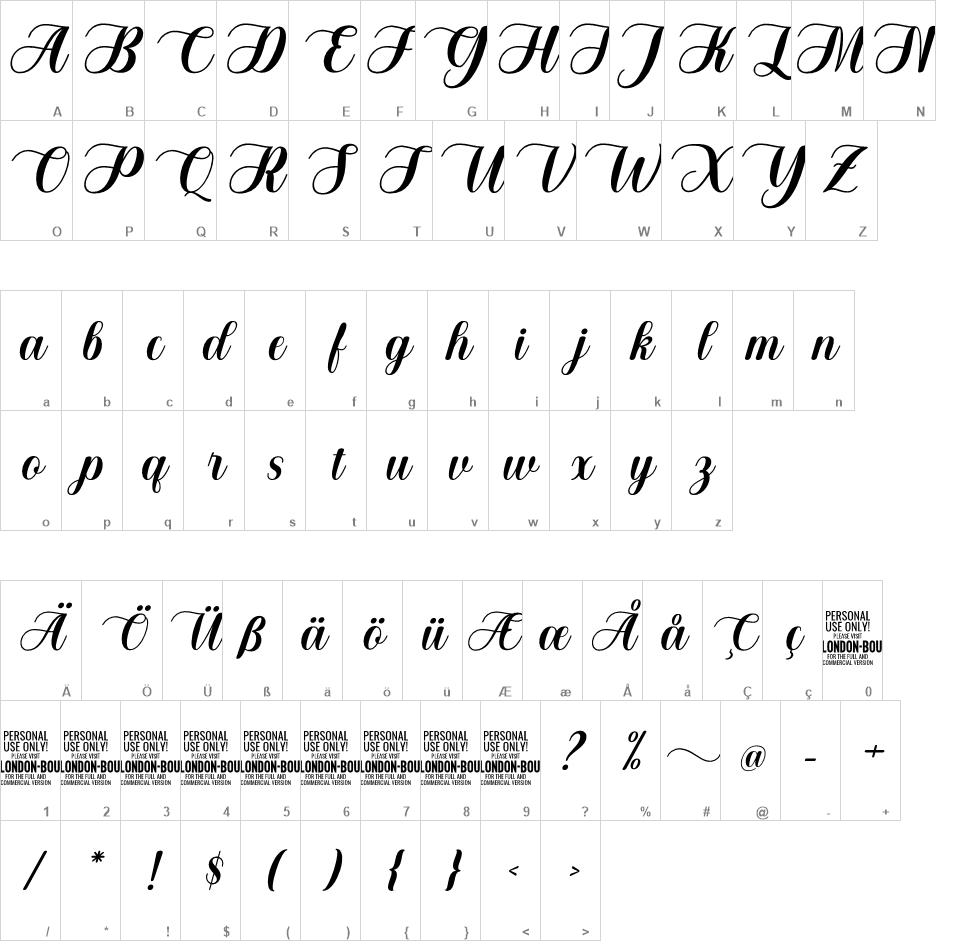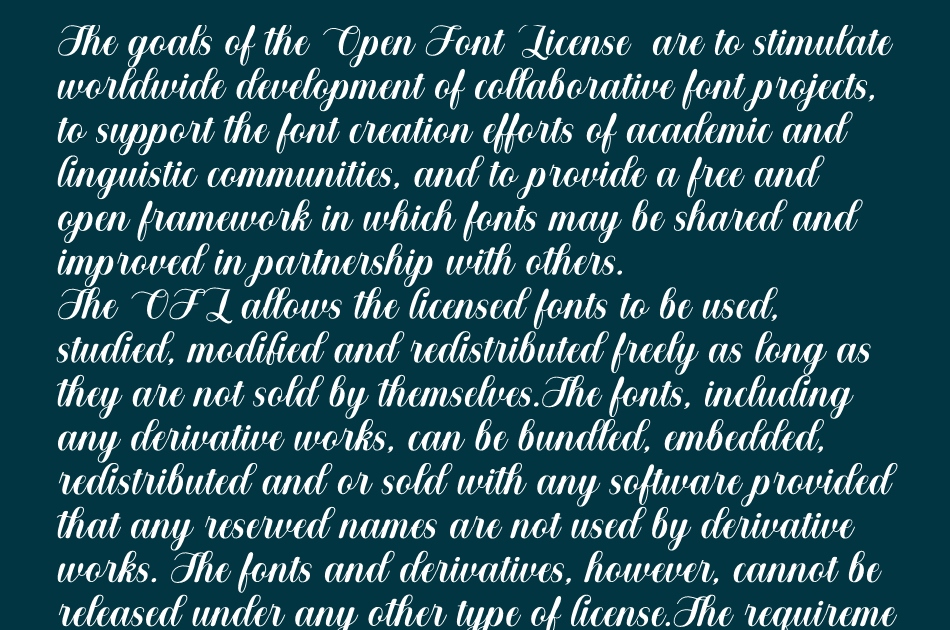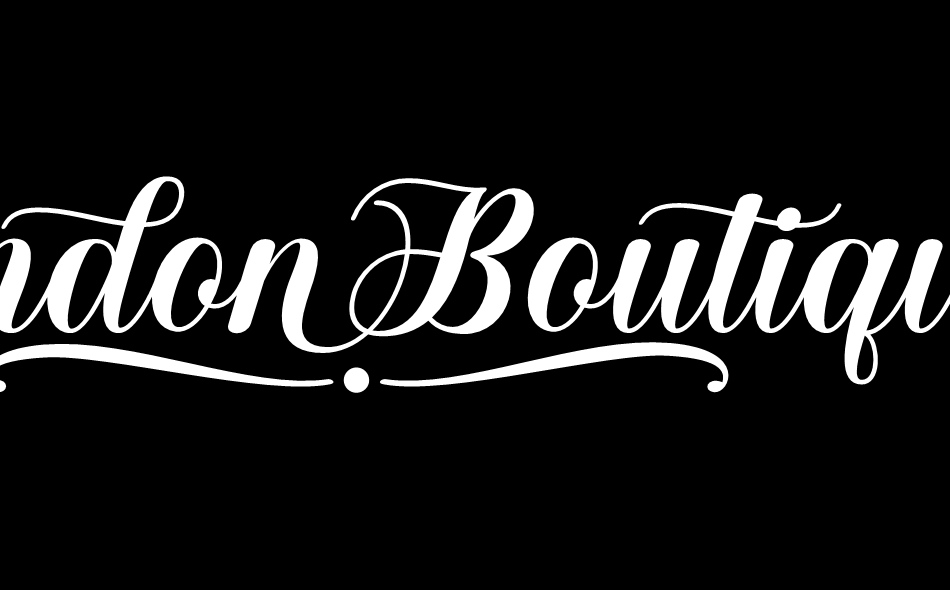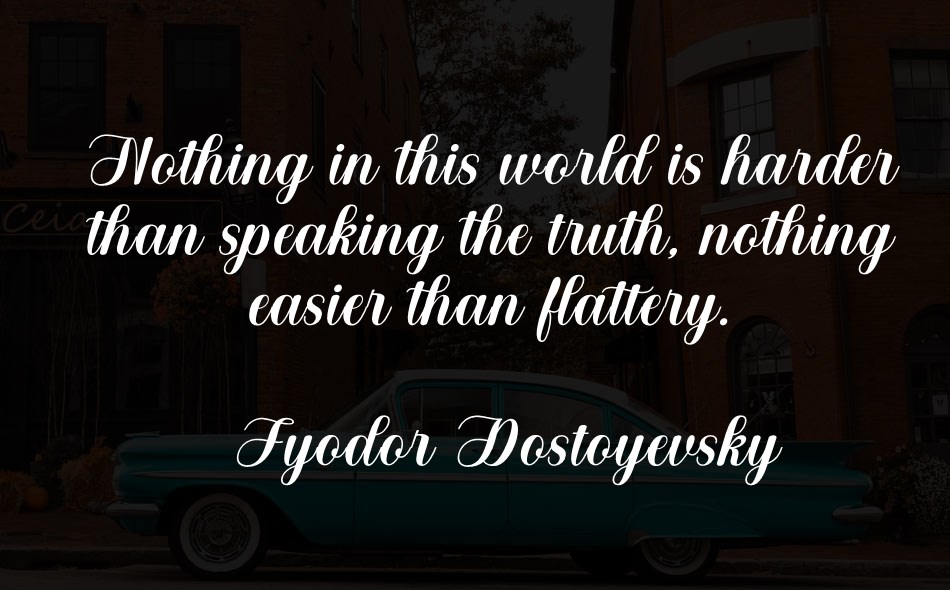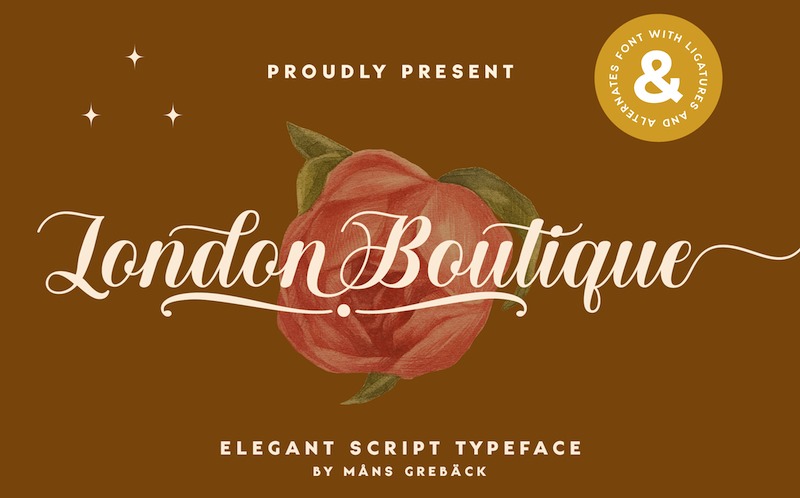
London Boutique font
Use underscore _ anywhere in a word to make a swash.
Example: Luxure_Shops
Use multiple underscores to make different swashes.
Example: Angel___Stars
Use # before or after any letter to make an initial or finishing swash.
Example: #loveletter#
London Boutique is a bold and cute script font that combines rustic charm and fine art elegance. Its cursive strokes and handwriting style give it a personalized touch that is perfect for adding a decorative flair to your designs.
Designed with a focus on independent shop usage, London Boutique features fine swashes that add a touch of sophistication to any project. Whether you're creating logos, branding, or social media posts, this font is versatile enough to handle it all.
London Boutique comes in four styles: Regular, Italic, Bold, and Bold Italic. This range of styles provides flexibility and allows for dynamic and creative designs.
Use underscore _ anywhere in a word to make a swash. Example: Luxure_Shops
Use multiple underscores to make different swashes. Example: Angel___Stars
Use # before or after any letter to make an initial or finishing swash. Example: #loveletter#
The font is built with advanced OpenType functionality and has a guaranteed top-notch quality, containing stylistic and contextual alternates, ligatures and more features; all to give you full control and customizability. It has extensive lingual support, covering all Latin-based languages, from Northern Europe to South Africa, from America to South-East Asia. It contains all characters and symbols you'll ever need, including all punctuation and numbers.